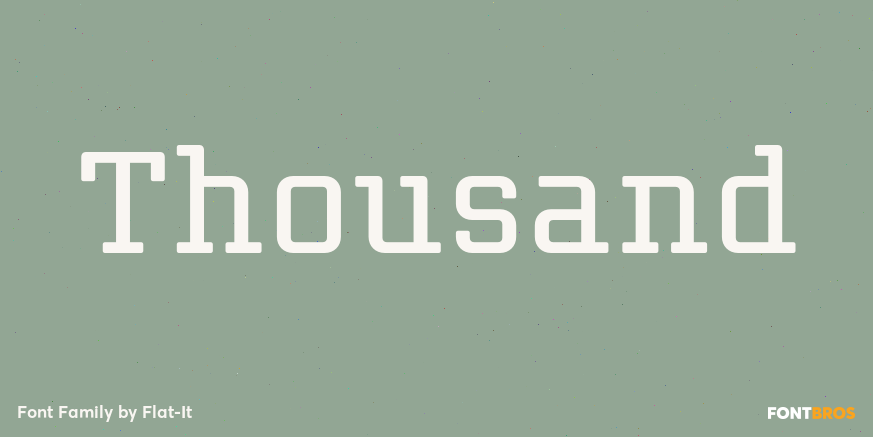
Thousand
About Thousand
This slab serif has incredible type system. By using power of OpenType alternates, typographic flexibility going up and up as its name indicates. Serifs transform, change to small caps and ligatures give you rich typography.